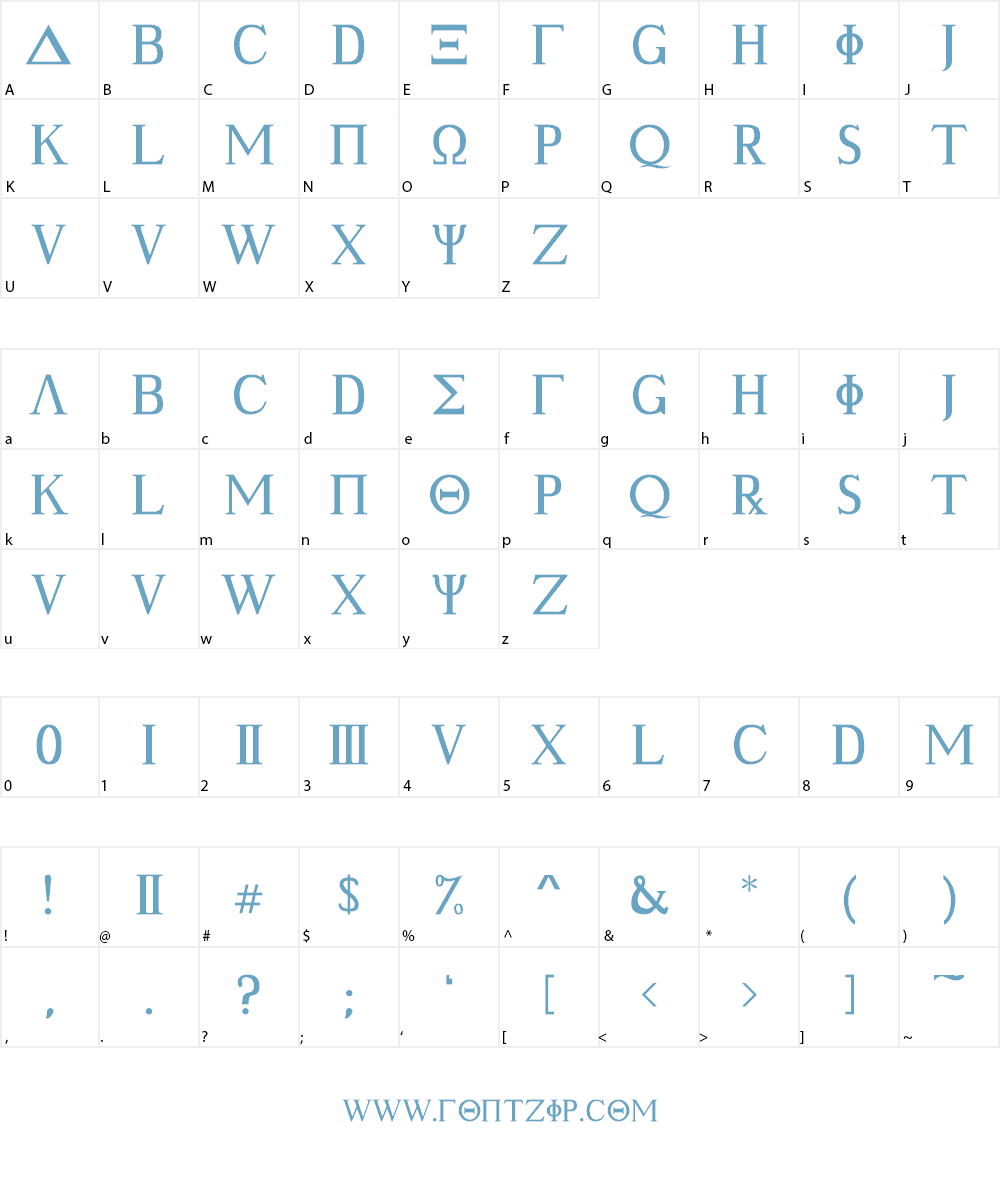
Have you ever tried to read Greek lettering (like the name of a
fraternity) pronouncing each letter like the Latin letter it looks
like instead of how the Greek letter is supposed to be pronounced?
That is what this font is based on. I took all the Greek letters
and matched them up with the Latin alphabet letters they look like.
Delta, for instance, shows up as an A. I threw out all the Greek
letters that didn't look like anything and filled in the remaining
characters with the regular Latin alphabet. The result is that you
can type out a phrase and it will look like Greek lettering while
being perfectly readable English.